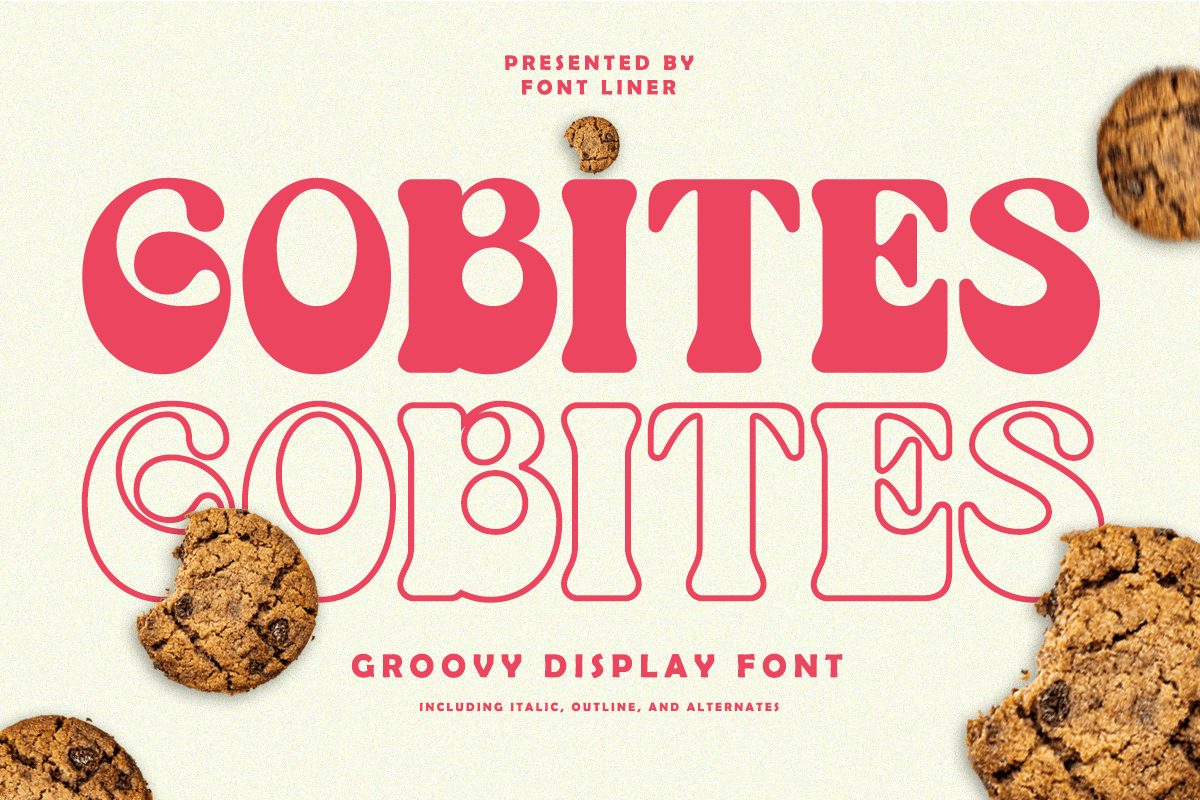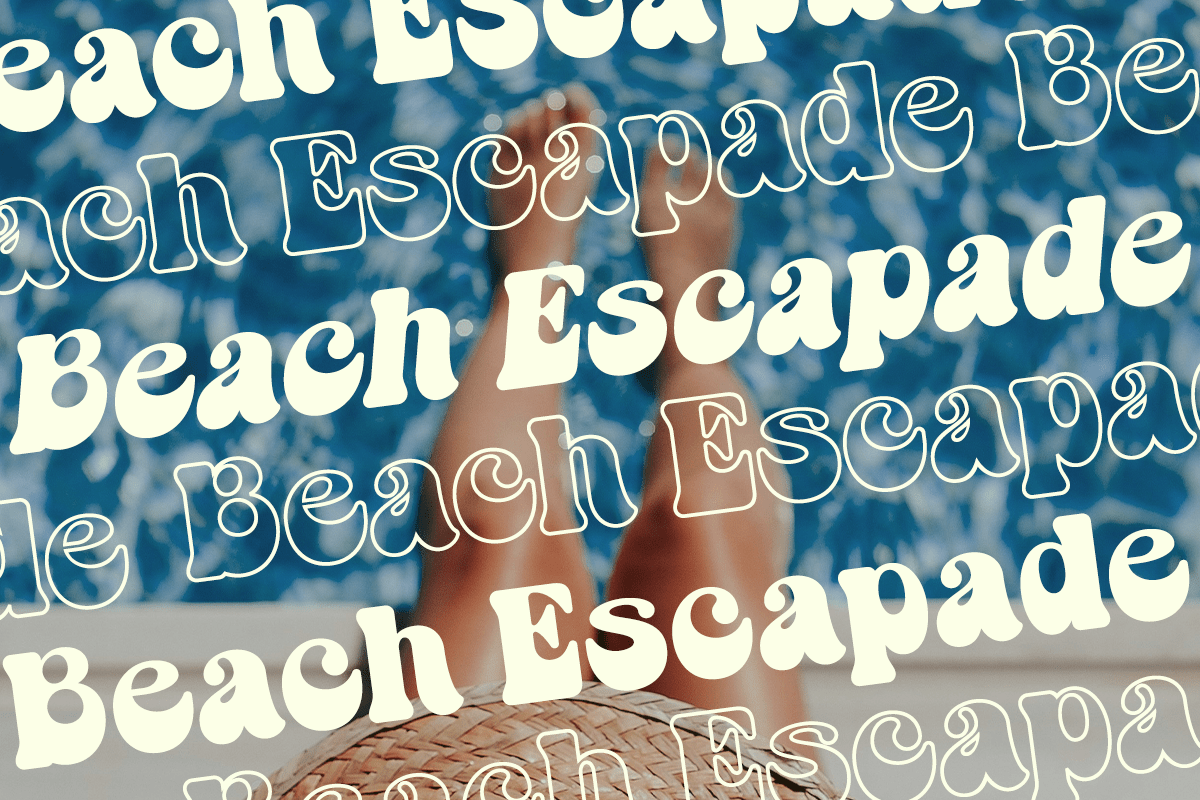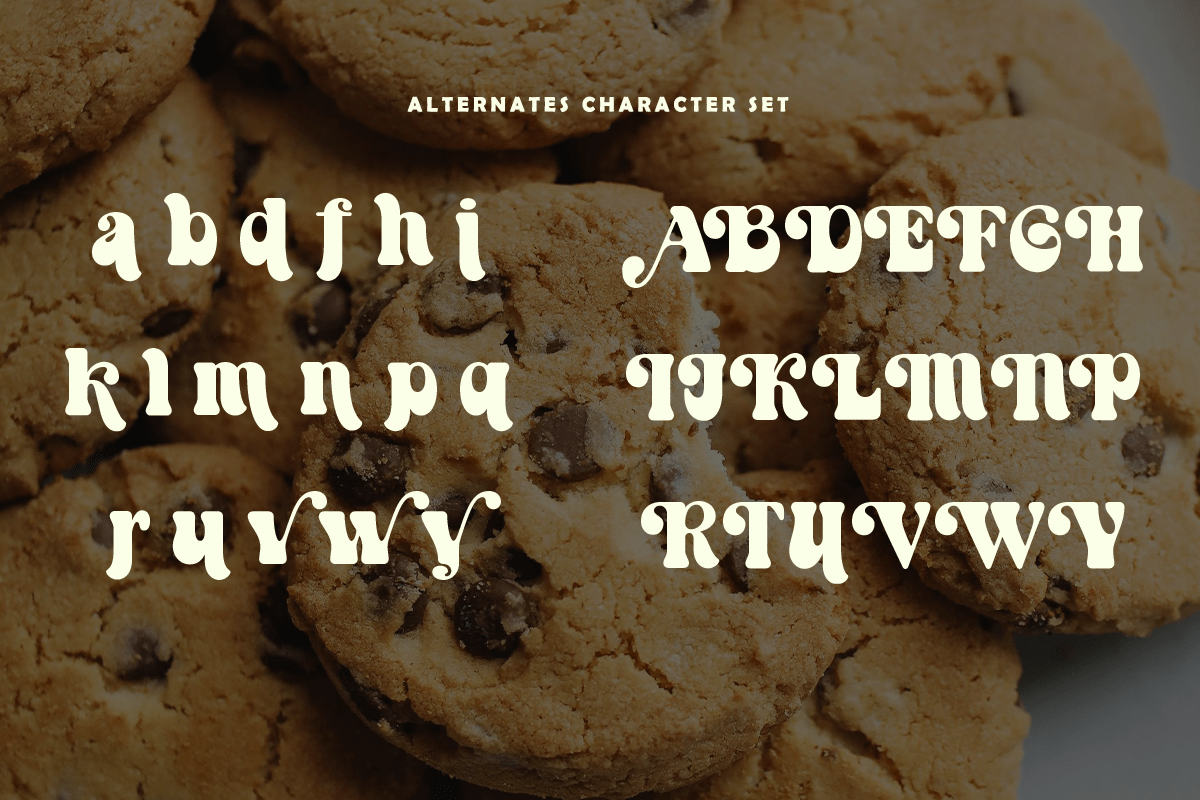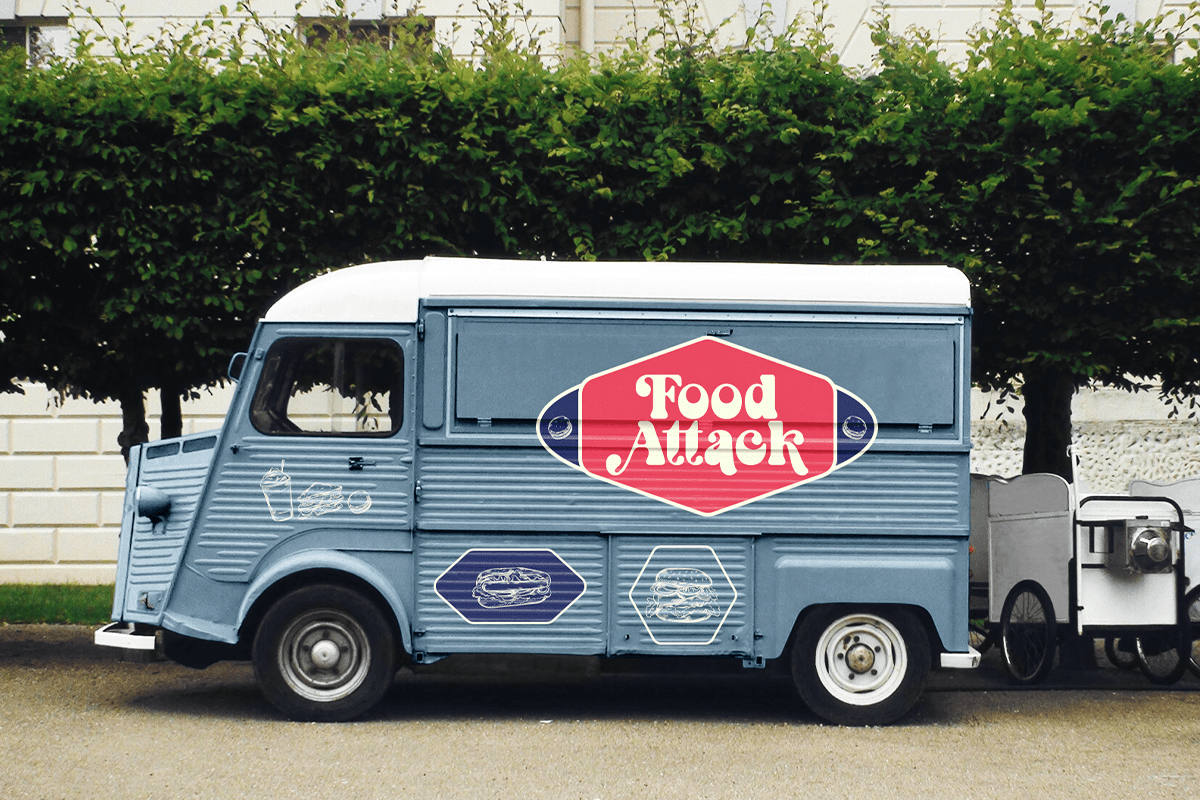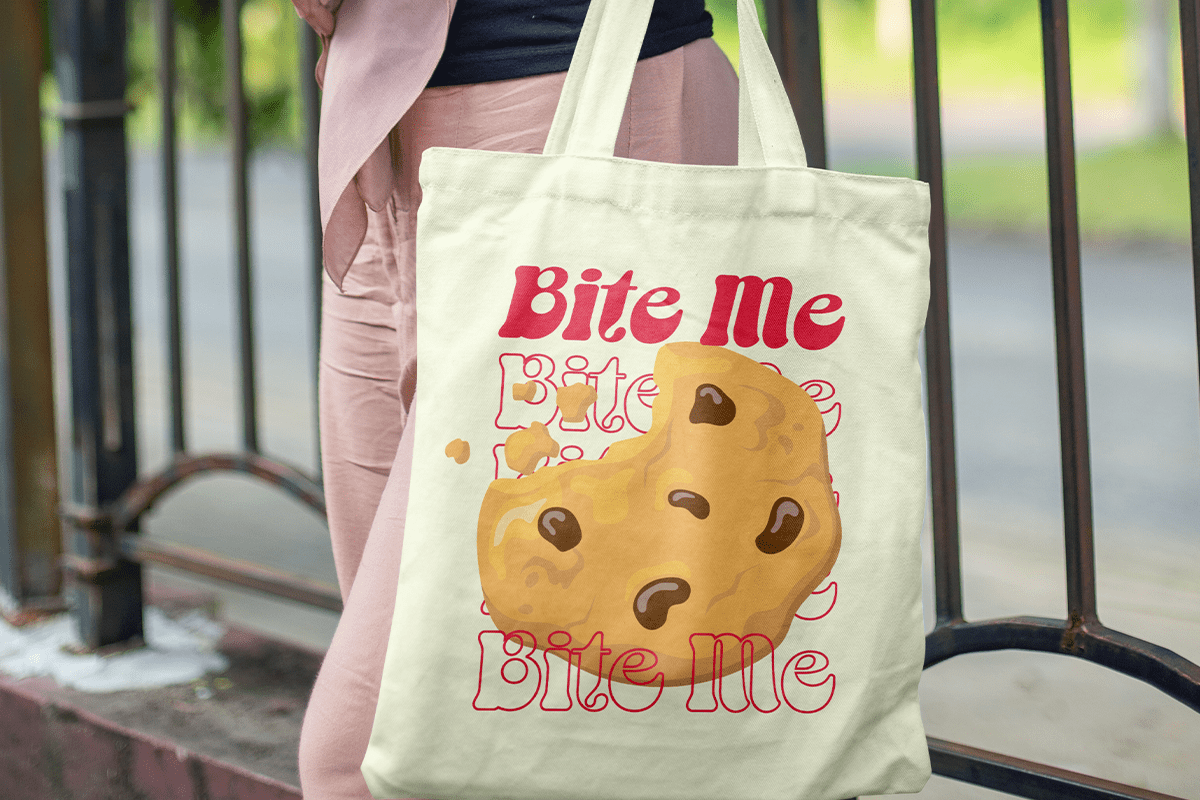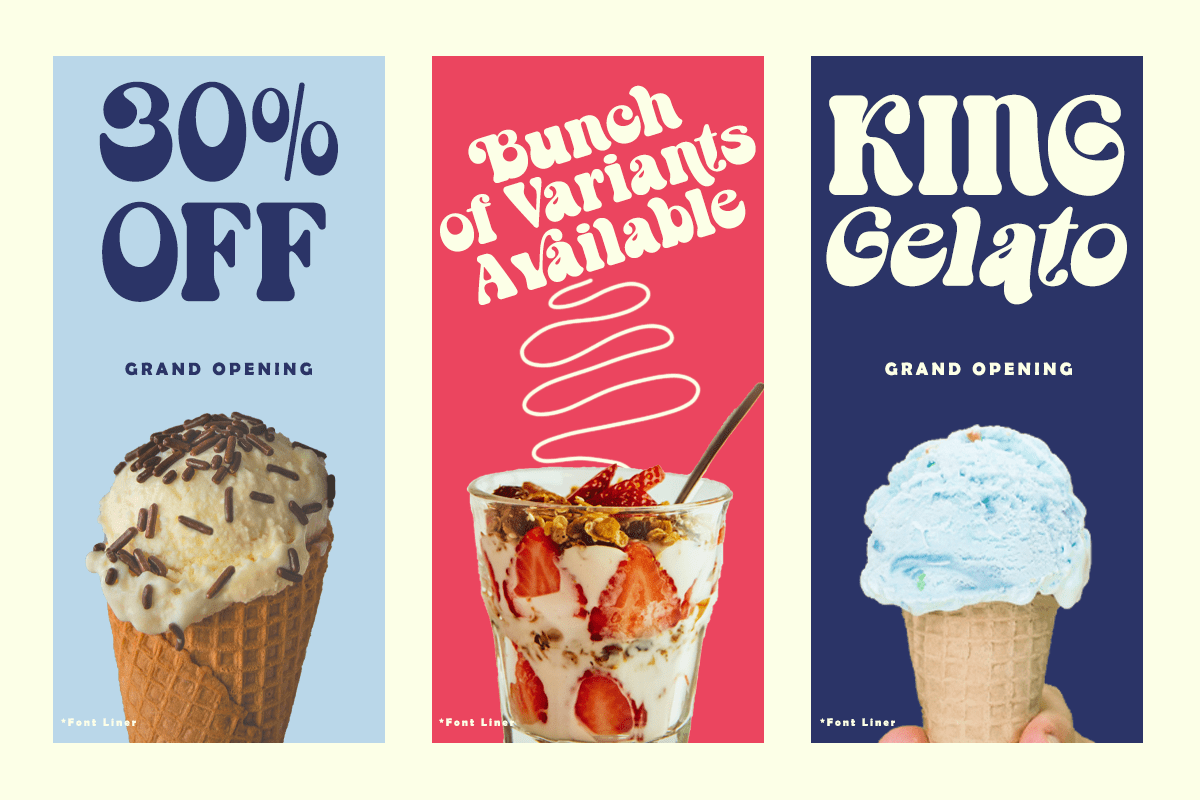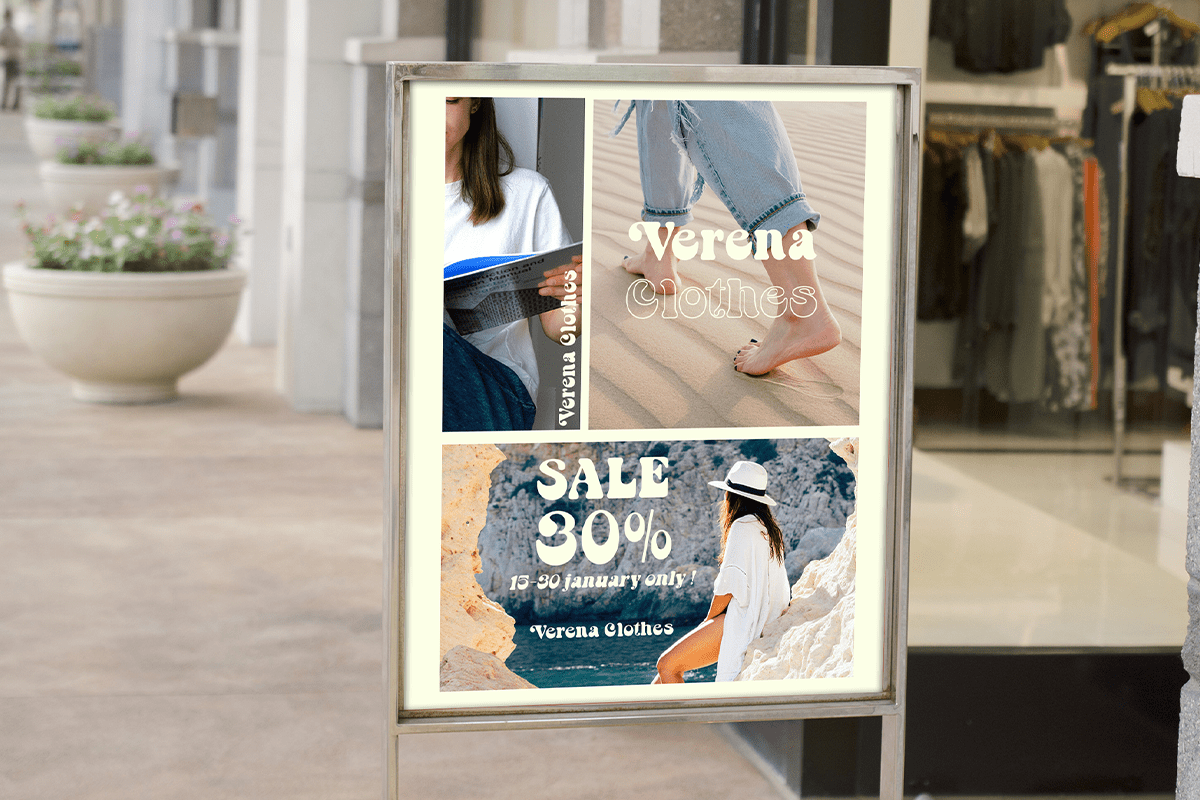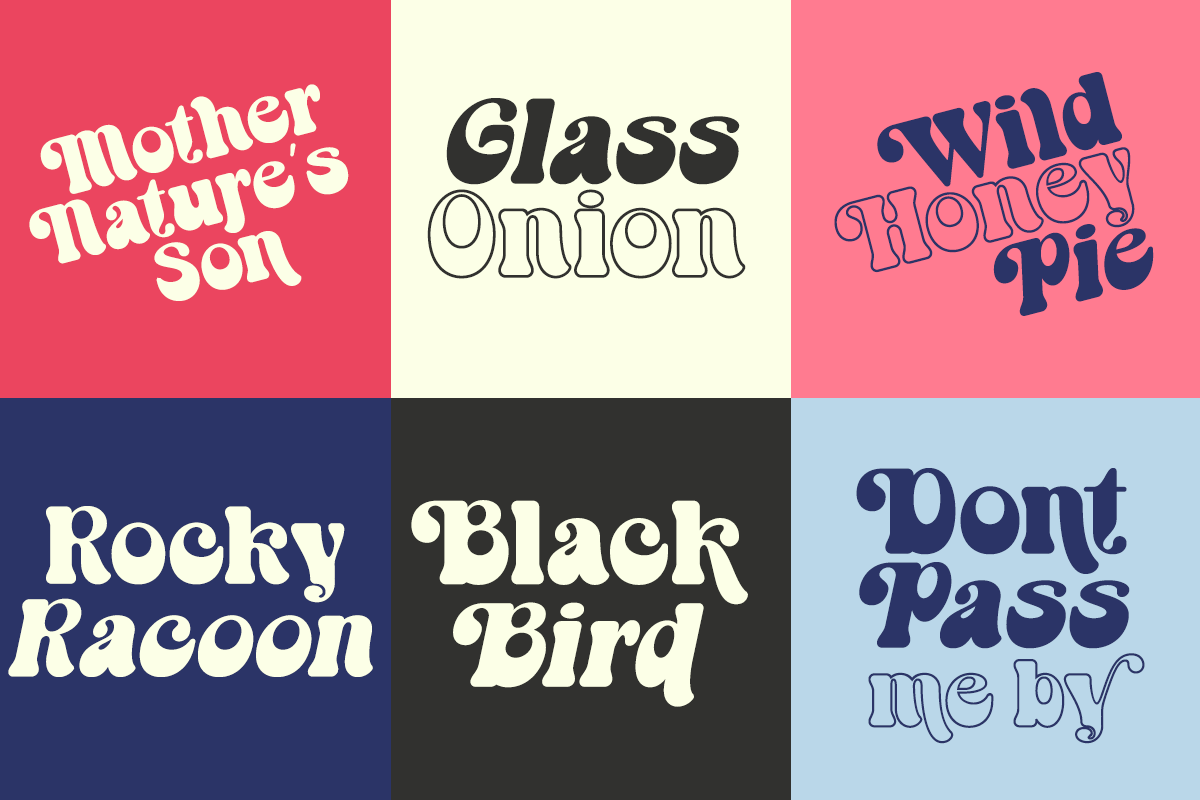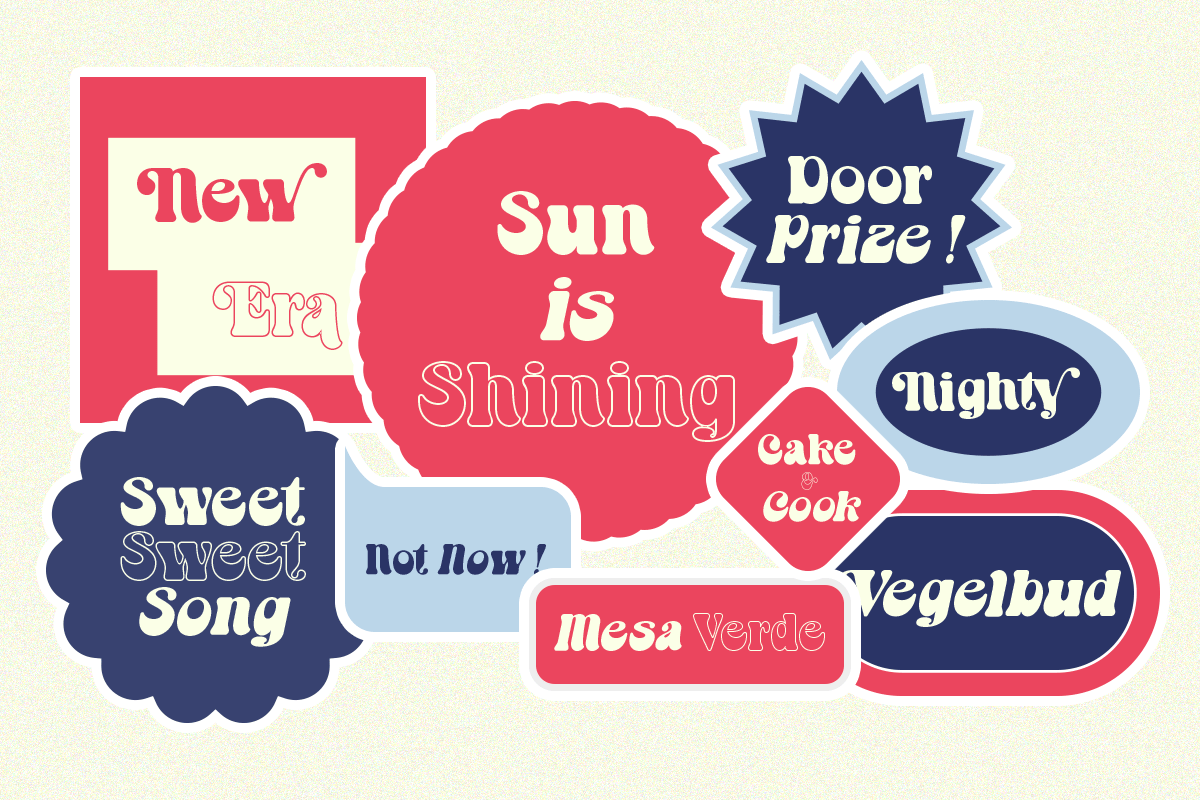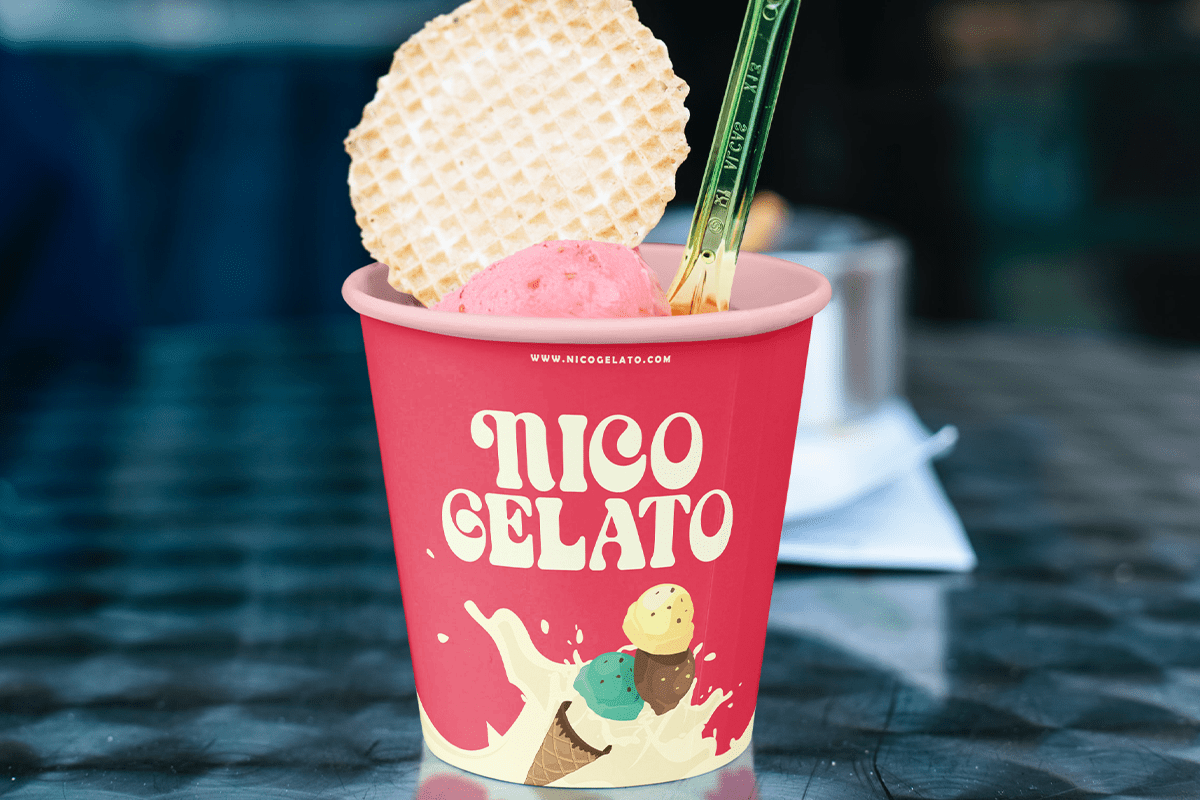
Gobites – Groovy Display Font
Gobites is a playful groovy display font inspired by the vibrant typography of the 70s and retro pop culture. Featuring bold rounded letterforms, funky alternates, and cheerful curves, this typeface delivers an energetic personality that instantly grabs attention. Its nostalgic charm and expressive style make Gobites the perfect choice for designers who want to create fun, memorable, and eye-catching visuals.
Designed for food branding, cafés, ice cream shops, bakeries, snack packaging, children’s products, posters, merchandise, social media, advertising, editorial layouts, and lifestyle brands, Gobites brings a joyful vintage aesthetic to every project. Whether you’re designing product labels, promotional campaigns, playful logos, or colorful packaging, this font creates a friendly and irresistible visual identity across print and digital media.
Gobites includes uppercase and lowercase letters, stylish alternates, multilingual support, numerals, punctuation, and symbols, giving designers everything they need for creative typography. From retro branding and dessert packaging to fun event graphics and modern marketing campaigns, Gobites is the perfect groovy display font for projects that celebrate creativity, nostalgia, and bold visual impact..
– Stylistic alternates